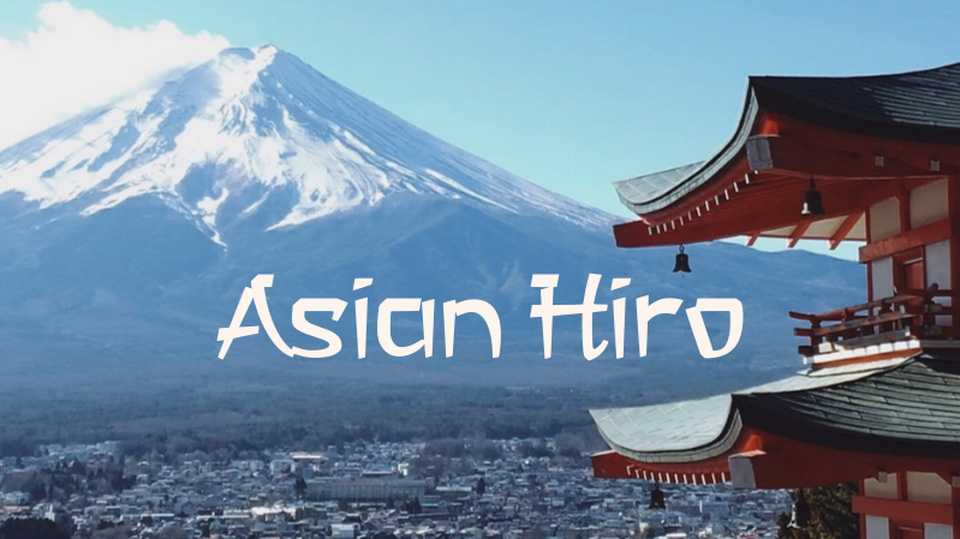
Download Asian Hiro font, an original typeface, inspired by design and typograpy. Asian Hiro font most suited for decorative use, posters, media and more
Designer: Wahyu Eka Prasetya